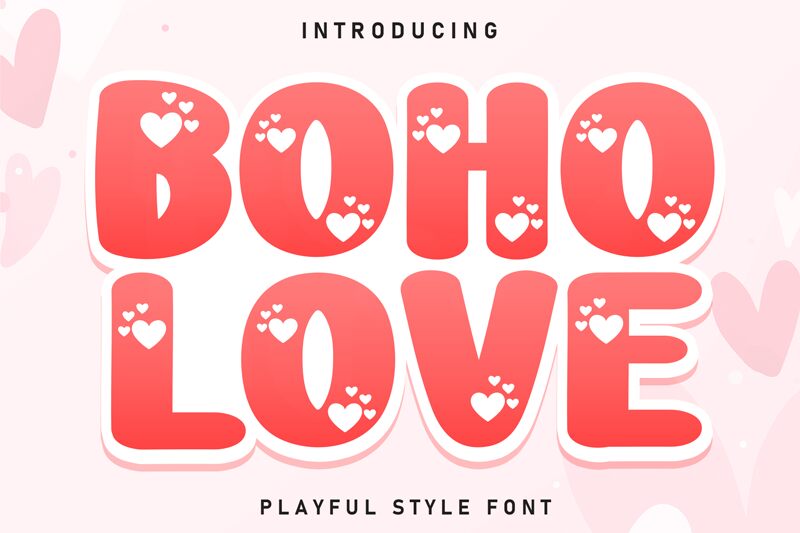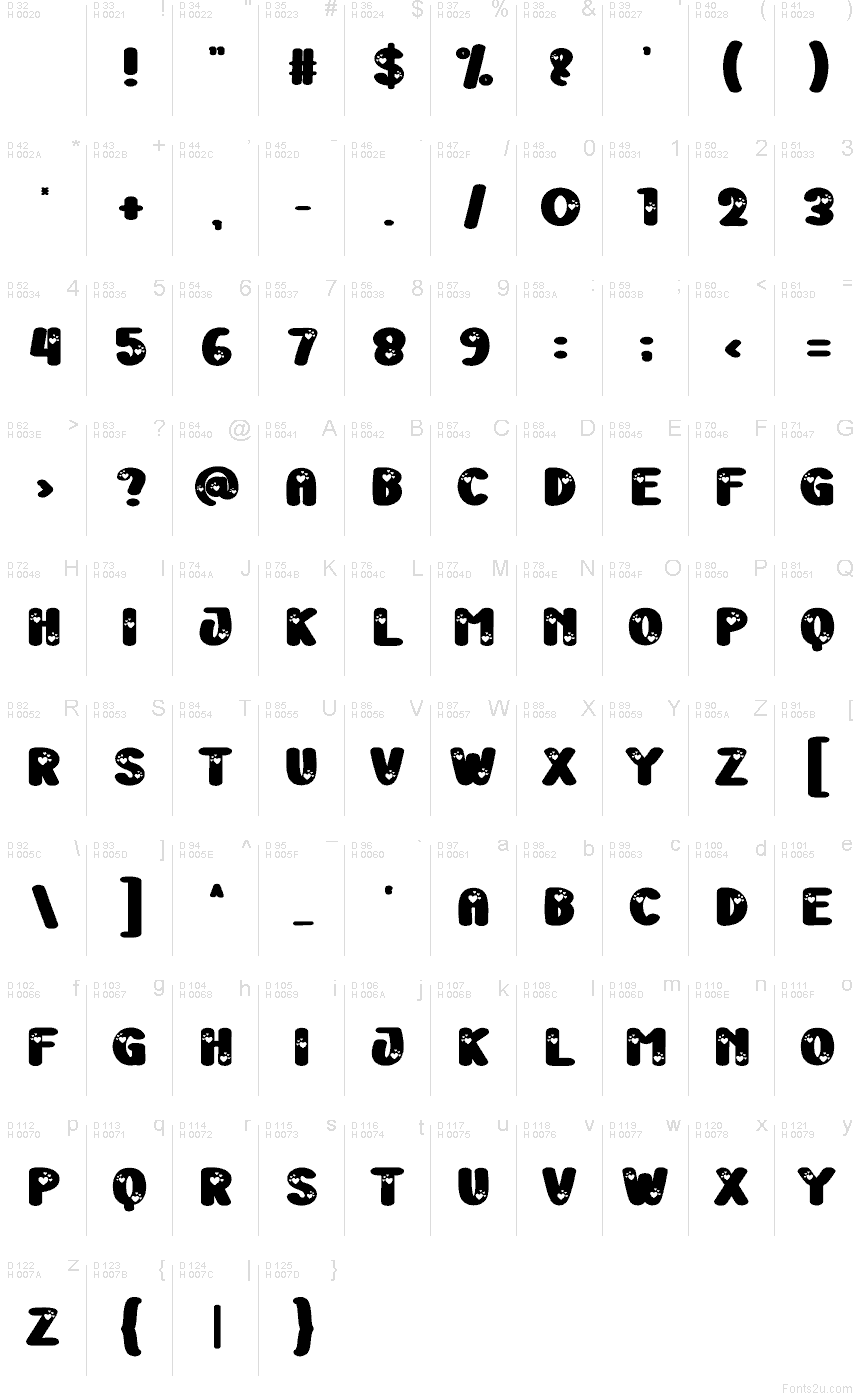
Boho Love
Boho Love font by Scratchones is a free Valentine holiday font that turns every word into a chunky, heart-filled statement. Bold, rounded letters are punched through with clusters of little hearts, giving the typeface a playful, hand-cut feel-like paper garlands or candy box lettering. The solid black shapes and clean curves make it easy to read, even with all the decorative cutouts.
Using Boho Love, this free font shines on Valentine cards, wedding party favors, classroom printables, T-shirt graphics, stickers, and social posts that need instant sweetness. It works beautifully at larger sizes where the heart details can really pop, and pairs well with a simple sans serif for small supporting text. Set Boho Love in bright colors or over soft pastels to amp up the festive, boho-romantic vibe.